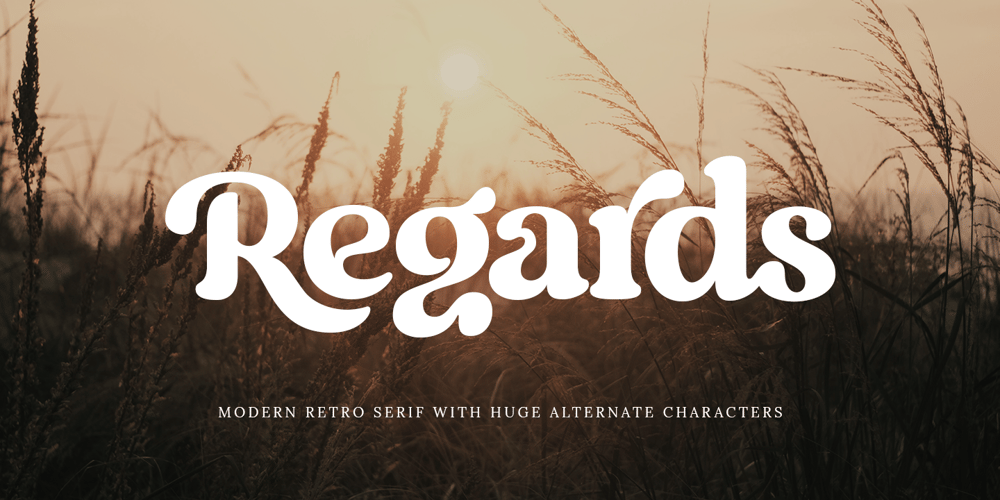
Regards SS
Regards SS font
Regards SS Font Family was designed by Zamroni Hamzah and published by Sensatype Studio. Regards SS contains 1 styles and family package options. Regards is A Vintage Modern Retro SerifRegards font is a well-balanced retro modern vintage font with a fancy, playful, unique, and versatile vintage serif family with 100+ alternates that you can combine to get curves and beautiful shapes easily just in seconds. It is a display font with moderate contrast that perfect for branding projects, logo, wedding designs, social media posts, advertisements, product packaging, product designs, label, photography, watermark, invitation, stationery, and any projects, it makes with a high level of legibility.What’s Included: Character set A-Z Uppercase & Lowercase Numerals & Punctuation Accented Characters (West Europe) Ligature & Huge Stylistic alternates Works on PC & Mac Recommended using Adobe Illustrator or Adobe Photoshop. Wish you enjoy our font and if you have any questions, don’t hesitate to drop message & I’m happy to help 🙂